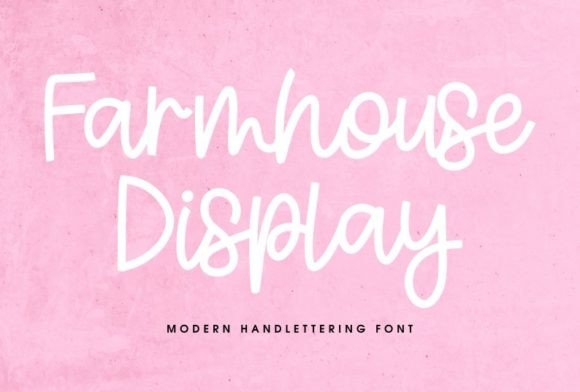
Journey to the heart of rustic charm with Farmhouse Display Font, a captivating script font family that whispers stories of cozy cottages and sun-soaked fields. Immerse yourself in the warmth of its elegant touch, meticulously crafted to elevate your creative projects beyond imagination.
This exquisite font, lovingly designed by Goodrichees, is a visual symphony of flowing strokes and charming details, echoing the beauty of classic calligraphy. Its meticulously rendered characters dance upon the page, enchanting you with their timeless grace.
Farmhouse Display Font is the ultimate storyteller, a perfect match for blurb books yearning to transport readers to idyllic settings. Its elegant curves and playful flourishes lend a touch of whimsy, inviting readers to delve deep into the heart of your tales.
Whether you're crafting wedding invitations, heartwarming greeting cards, or enchanting posters, Farmhouse Display Font weaves a spell of rustic elegance, leaving your audience breathless. Its versatility extends to branding and logo designs, adding a touch of sophistication and charm.